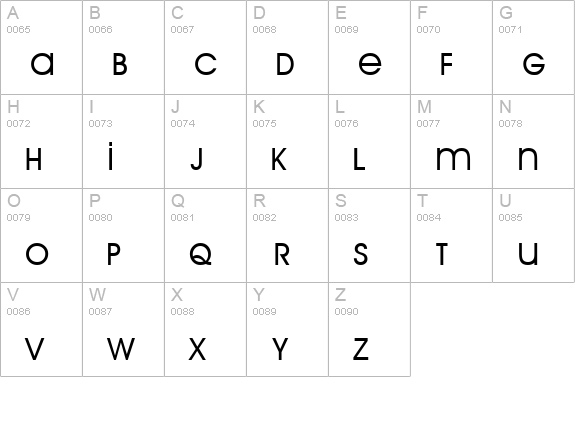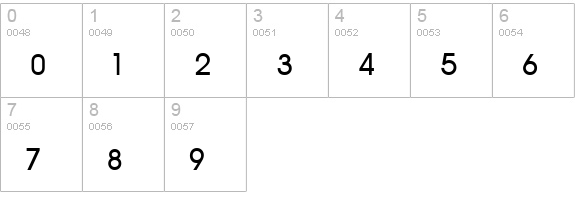
Arrière Garde Font Details
Arrière Garde font is a stunning typeface that exudes elegance and sophistication. Its sleek lines and modern design make it perfect for a wide range of projects, from branding to editorial design. The font strikes the perfect balance between traditional and contemporary, making it suitable for both classic and modern applications. What sets Arrière Garde font apart is its unique blend of sharp angles and curved edges, creating a harmonious and eye-catching appearance. Whether used in headlines or body text, this font is sure to make a statement and capture the attention of your audience. The best part about Arrière Garde font is that it is completely free to download at FontsMarket.com. So, you can elevate your designs without breaking the bank. Don't miss out on this incredible opportunity to add a touch of sophistication to your projects with Arrière Garde font.